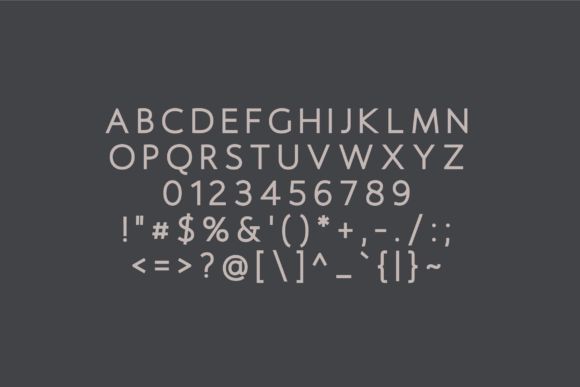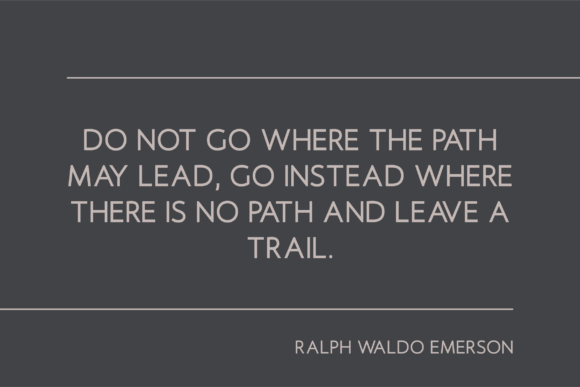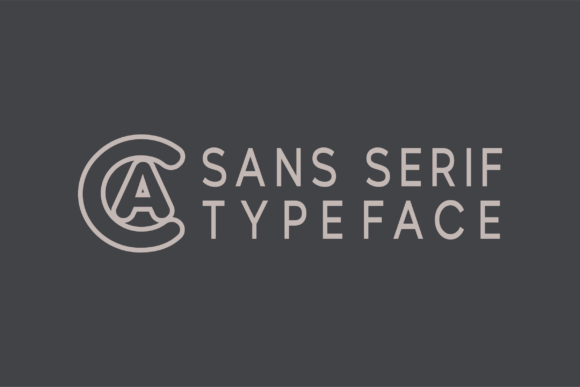
Introducing Axiopistos Font: Elevate Your Designs with Sophistication
In the world of typography, a well-crafted font can make all the difference in elevating a design from ordinary to extraordinary. Axiopistos, a contemporary sans serif typeface, is here to revolutionize the way you approach your creative projects. With its perfect blend of modernity and classic sophistication, Axiopistos is poised to become your go-to font for a wide range of applications.
A Full-Bodied Font with Endless Possibilities
Axiopistos is not just a font; it’s a comprehensive typographic experience. This full-bodied typeface boasts an extensive character set, featuring uppercase letters, numerals from 0-9, and a vast array of punctuation and symbols. This vast library of characters ensures that Axiopistos can be used in a multitude of contexts, from elegant wedding invitations to powerful inspirational quotes, and from striking logos to captivating print materials.
Unleash Your Creativity with Axiopistos
One of the standout features of Axiopistos is its incredible versatility. This font can effortlessly adapt to various design needs, imbuing each project with a unique touch of sophistication. Here are just a few examples of how Axiopistos can elevate your designs:
- Wedding Invitations: Add a romantic flair to your wedding invites with Axiopistos’ elegant and refined appearance.
- Inspirational Quotes: Empower your words with Axiopistos’ strong and confident presence.
- Logo Design: Create a lasting impression with Axiopistos’ distinctive and memorable aesthetic.
- Print Materials: Bring your magazines, advertisements, and invitations to life with Axiopistos’ powerful and captivating design.
Crafted for the Modern Designer
Axiopistos is more than just a font; it’s a design companion that understands the needs of modern creators. Its clean lines, balanced proportions, and meticulous attention to detail make it an ideal choice for designers seeking a typeface that can keep pace with their creative vision.
Key Features of Axiopistos
- Contemporary Sans Serif Design: A fresh and modern take on the classic sans serif typeface.
- Extensive Character Set: Includes uppercase letters, numerals, punctuation, and symbols.
- High Versatility: Suitable for a wide range of design applications, from digital to print.
- Elegant and Refined: Perfect for projects requiring a touch of sophistication and class.
Why Choose Axiopistos?
In a sea of fonts, Axiopistos stands out for its unique blend of modernity and elegance. Here are a few reasons why designers and crafters are making Axiopistos their top choice:
- Attention to Detail: Axiopistos’ meticulous design ensures that every character is a masterpiece of typographic excellence.
- Emotional Connection: This font has the power to evoke emotions and create a lasting impression on your audience.
- Time-Saving: With Axiopistos’ extensive character set, you can complete your projects quickly and efficiently.
Axiopistos is more than just a font; it’s a gateway to unlocking your creative potential. With its sophisticated design, extensive character set, and boundless versatility, Axiopistos is poised to become an indispensable tool in your design arsenal. Whether you’re a seasoned designer or a crafty DIY enthusiast, Axiopistos invites you to experience the art of typography like never before. Elevate your designs, amplify your message, and leave a lasting impression with Axiopistos.